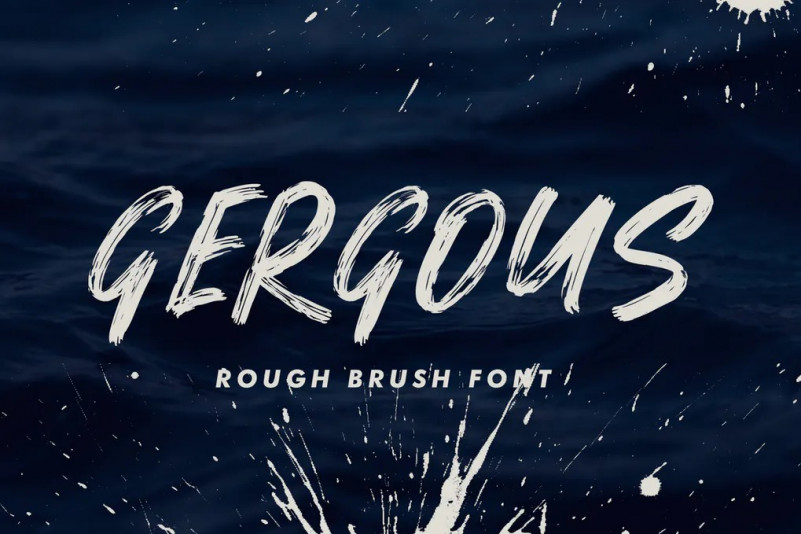
Gergous Font
Gergous Brush Font is a rough brush font with a clear style and good flow.
This font is great for your next creative project such as Logotype, printed quotes, invitations, cards, product packaging, headers, Letterhead, Poster, Apparel Design, Label, and etc.